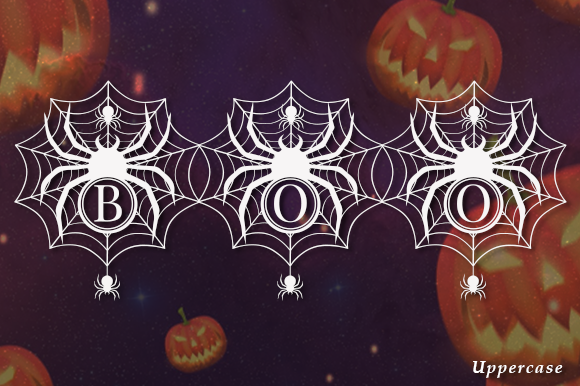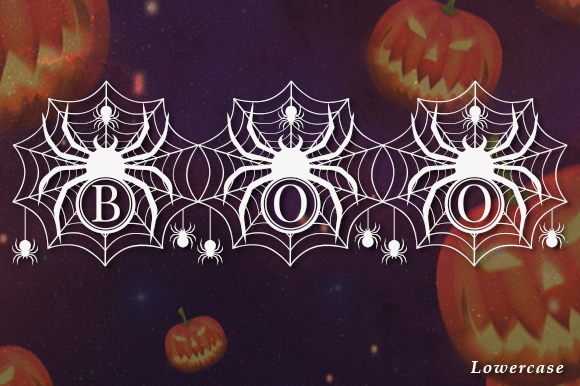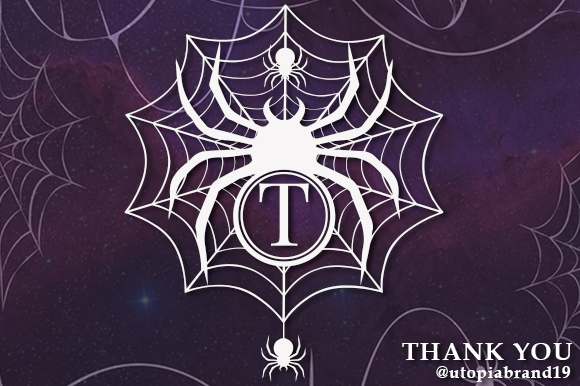
Unleash the Spookiness: Introducing the Halloween Spider Monogram Font
As the spookiest time of the year approaches, designers and crafters are on the lookout for unique and eye-catching elements to add to their Halloween designs. If you’re looking to make your creations stand out, look no further than the Halloween Spider Monogram Font. This incredibly unique and spooky decorative font is sure to add a touch of eerie elegance to your designs.
What is the Halloween Spider Monogram Font?
The Halloween Spider Monogram Font is a distinctive and stylish font designed specifically for the Halloween season. Its unique design features spider web-like connections between the letters, giving it a spooky and festive feel. The font is perfect for creating eye-catching monograms, titles, and headings for your Halloween designs.
Why Use the Halloween Spider Monogram Font?
There are many reasons why the Halloween Spider Monogram Font is a must-have for designers and crafters. Here are just a few:
- Unique and eye-catching: The Halloween Spider Monogram Font is unlike any other font out there. Its distinctive design is sure to grab attention and make your designs stand out.
- Spooky and festive: The font’s spider web-like connections and eerie feel make it perfect for the Halloween season.
- Versatile: The Halloween Spider Monogram Font can be used for a wide range of designs, from invitations and party decorations to social media graphics and blog posts.
How to Use the Halloween Spider Monogram Font
Using the Halloween Spider Monogram Font is easy. Here are a few tips to get you started:
- Pair it with other Halloween elements: Combine the Halloween Spider Monogram Font with other Halloween-themed elements, such as pumpkins, ghosts, and bats, to create a cohesive and spooky design.
- Experiment with different colors: Try pairing the font with different colors, such as orange, black, and purple, to create a unique and eye-catching design.
- Use it for monograms and titles: The Halloween Spider Monogram Font is perfect for creating monograms and titles for your Halloween designs.
Design Ideas Using the Halloween Spider Monogram Font
- Halloween party invitations: Use the Halloween Spider Monogram Font to create spooky and eye-catching invitations for your Halloween party.
- Spider-themed crafts: Pair the font with spider-themed crafts, such as paper spiders and spider web decorations, to create a cohesive and spooky design.
- Halloween social media graphics: Use the font to create eye-catching social media graphics, such as “Happy Halloween” posts and spooky-themed memes.
- Halloween blog posts: Add a touch of spookiness to your Halloween blog posts with the Halloween Spider Monogram Font.
The Halloween Spider Monogram Font is a unique and spooky decorative font that’s perfect for the Halloween season. Its eye-catching design and versatile uses make it a must-have for designers and crafters. Whether you’re creating Halloween party invitations, spider-themed crafts, or spooky social media graphics, this font is sure to add a touch of eerie elegance to your designs. So why wait? Download the Halloween Spider Monogram Font today and unleash the spookiness in your designs!